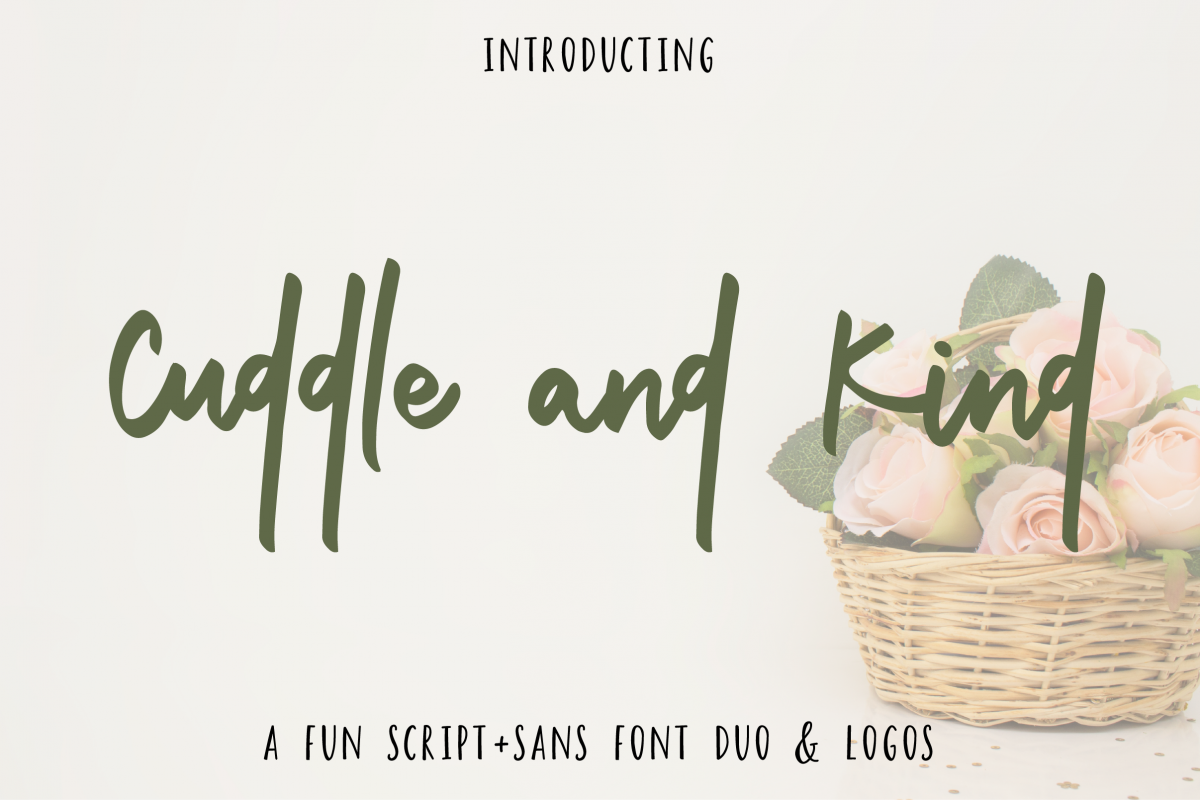
Introducing Cuddle and Kind, a warm and fun font duo perfect for all design projects. Cuddle and Kindcomes with a script font as well as a sans serif font to make font pairing easy. It's ideal for designing business cards, logos, photo overlays, prints, greeting cards, and so much more!